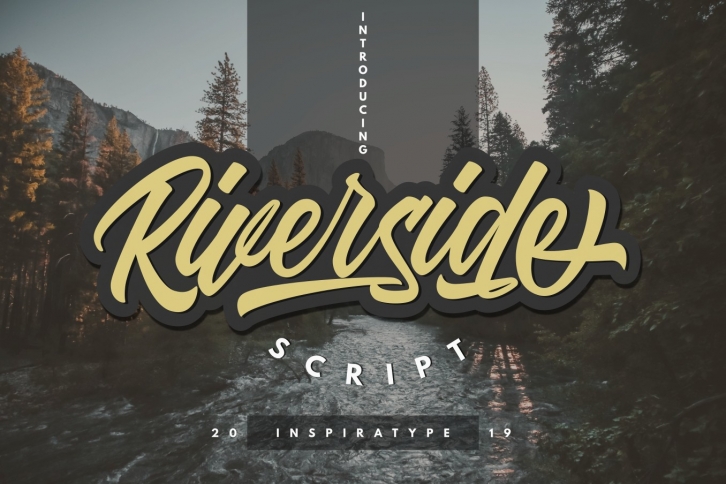
Riverside is a beautiful font that was designed by InspiraType. It's a great choice for designers and creatives who need such a font. It was released on June 14, 2019 and the file size is 12.99 MB. Riverside may give a more youthful, expressive and casual look to your project. It is a very beautiful, refined, elegant, and high-quality font.